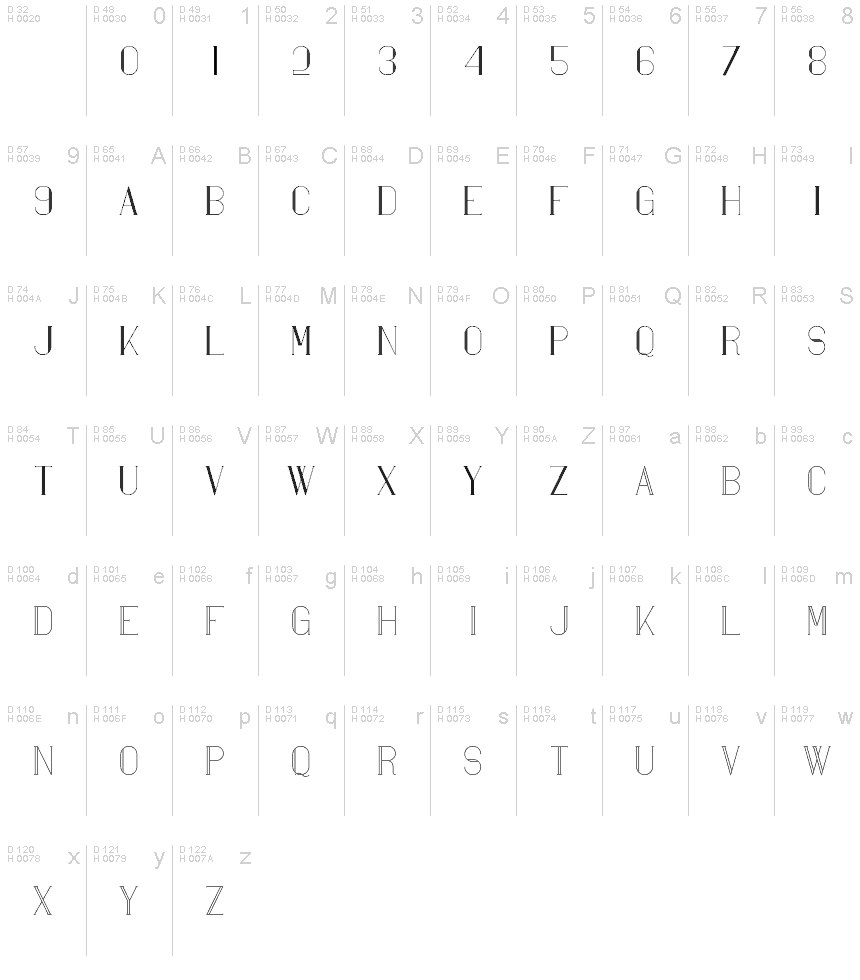
Maria
Maria is a captivating serif font that exudes a timeless elegance. Crafted with precision, its condensed design lends it a striking visual presence, effortlessly commanding attention. The sharp, angular strokes and distinct serifs create a bold, striking aesthetic that resonates across a wide range of design applications.
This font's versatility shines through, making it a versatile choice for headers, branding, and editorial layouts. Its refined, sophisticated character lends itself well to high-end, premium-quality projects, where it can elevate the overall aesthetic with its refined, dignified appearance.